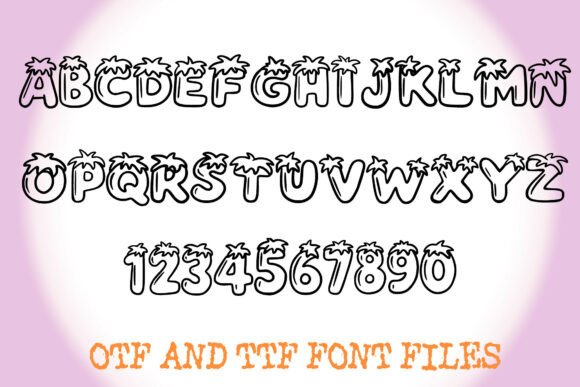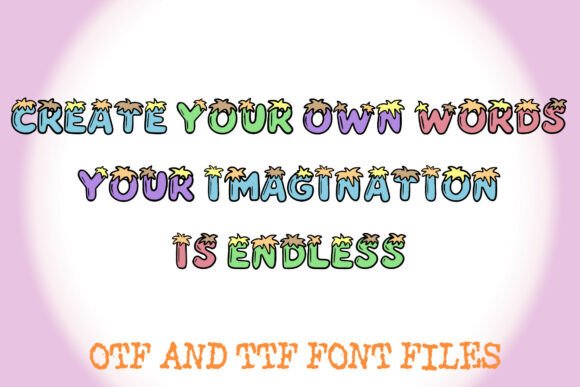
Hairy Wig Font: Unleash Your Creativity with this Playful Display Font
Are you tired of using the same old boring fonts in your designs? Look no further! Introducing Hairy Wig Font, a wild and playful display font that’s bursting with personality. This font is perfect for designers and crafters who want to add a touch of fun and whimsy to their projects.
What is Hairy Wig Font?
Hairy Wig Font is a unique and quirky font that features cartoonish letterforms topped with quirky tufts of “hair.” The font is designed to bring a smile to your face and make your designs stand out from the crowd. With its playful and chaotic vibe, Hairy Wig Font is perfect for kids’ designs, comic titles, funky branding, and anything that embraces fun and creativity.
Key Features of Hairy Wig Font
- Playful and Whimsical Design: Hairy Wig Font features cartoonish letterforms with quirky tufts of “hair” that add a touch of fun and personality to your designs.
- Perfect for Kids’ Designs: The font’s playful and colorful design makes it perfect for kids’ designs, such as children’s books, posters, and games.
- Comic and Funky Branding: Hairy Wig Font is also great for comic titles, funky branding, and any design that needs a bold and eye-catching font.
Why Choose Hairy Wig Font?
There are many fonts available that claim to be playful and fun, but Hairy Wig Font stands out from the crowd. Here are just a few reasons why:
- Unique Design: Hairy Wig Font has a unique and quirky design that’s unlike any other font on the market.
- High-Quality: The font is designed with high-quality and clear lines, making it perfect for printing and digital use.
- Versatile: Hairy Wig Font can be used for a wide range of projects, from kids’ designs to comic titles and funky branding.
- Easy to Read: Despite its playful design, Hairy Wig Font is easy to read, even at smaller sizes.
Tips and Tricks for Using Hairy Wig Font
Here are some tips and tricks for getting the most out of Hairy Wig Font:
- Use it for Headings: Hairy Wig Font is perfect for headings and titles, where you want to make a bold statement.
- Mix and Match: Try mixing and matching Hairy Wig Font with other fonts to create a unique and interesting design.
- Experiment with Colors: Hairy Wig Font looks great in bright and bold colors, so don’t be afraid to experiment!
- Have Fun: Most importantly, have fun with Hairy Wig Font! It’s a playful font that’s meant to bring a smile to your face.
In conclusion, Hairy Wig Font is a unique and playful display font that’s perfect for designers and crafters who want to add a touch of fun and whimsy to their projects. With its quirky design, high-quality lines, and versatility, Hairy Wig Font is a great choice for kids’ designs, comic titles, funky branding, and anything that needs a bold and eye-catching font.